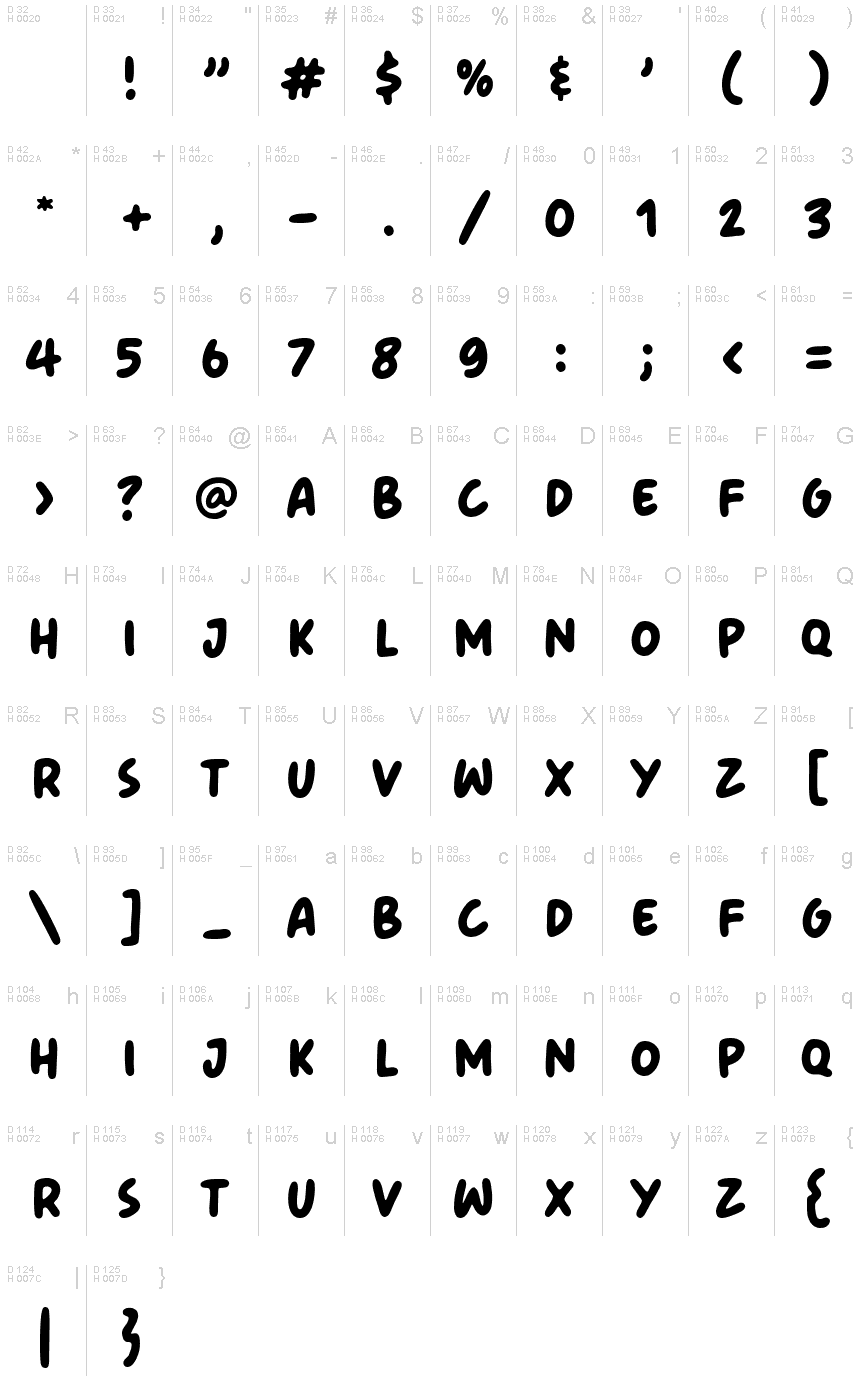
Frozenflare
Frozenflare, designed by Balpirick Studio, is a captivating display font that adds a burst of excitement to any project.
Its bold and vibrant style brings comic book characters to life, making it perfect for creating eye-catching headlines, logos, and posters. With its playful charisma, this font injects humor into advertising campaigns and children's books. Frozenflare's distinctive letterforms are also suitable for comic strips and video game design, adding a touch of whimsy to digital storytelling.
Let your creativity soar with Frozenflare's bold comic charm!